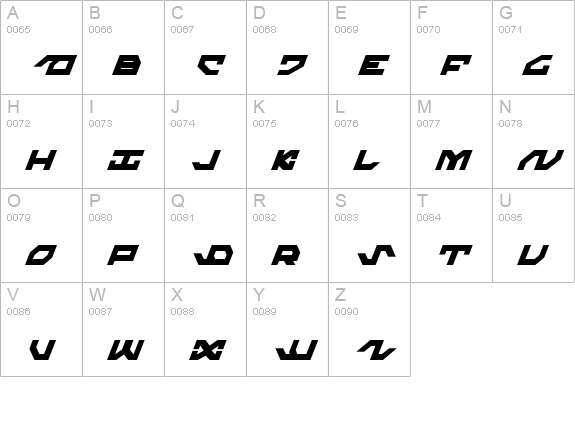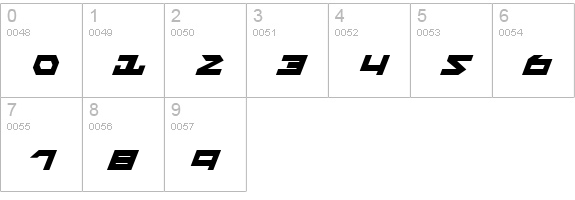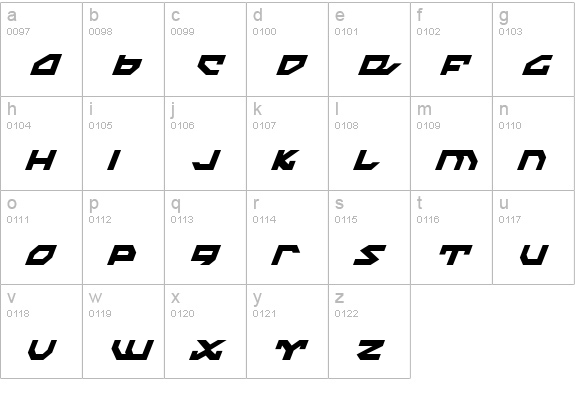
Nightrunner Condensed Italic is a distinctive, condensed-width, italic variant in the Nightrunner typeface family \xE2\x80\x94 well suited to design and typography projects.
Nightrunner Condensed Italic font is a sleek and modern typeface that exudes elegance and sophistication. With its unique italicized design, this font is perfect for adding a touch of style to any project. The condensed style of Nightrunner makes it ideal for fitting more text into tight spaces without sacrificing readability. This font is not only visually appealing but also highly versatile, making it suitable for a wide range of design projects including logos, headlines, posters, and more. Its sleek and contemporary appearance will surely captivate the attention of viewers and leave a lasting impression. Best of all, Nightrunner Condensed Italic font is completely free to download at FontsMarket.com. Whether you're a designer looking to enhance your projects or a business owner seeking a unique font for branding, Nightrunner Condensed Italic is a fantastic choice that won't cost you a thing. Download it today and elevate your designs with this stylish and modern typeface.